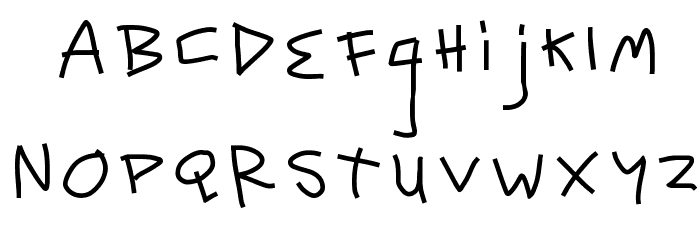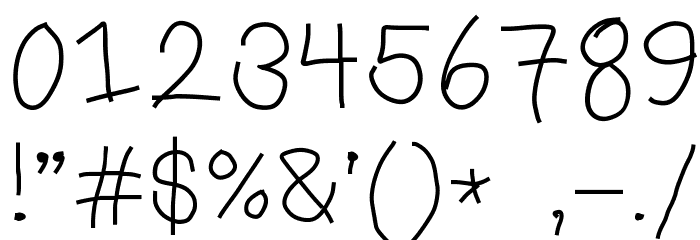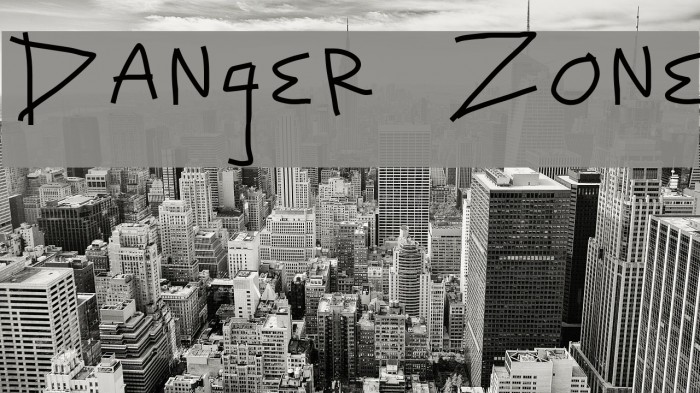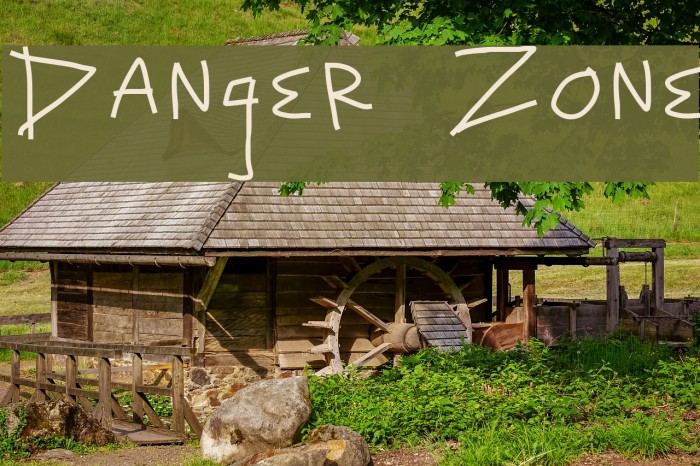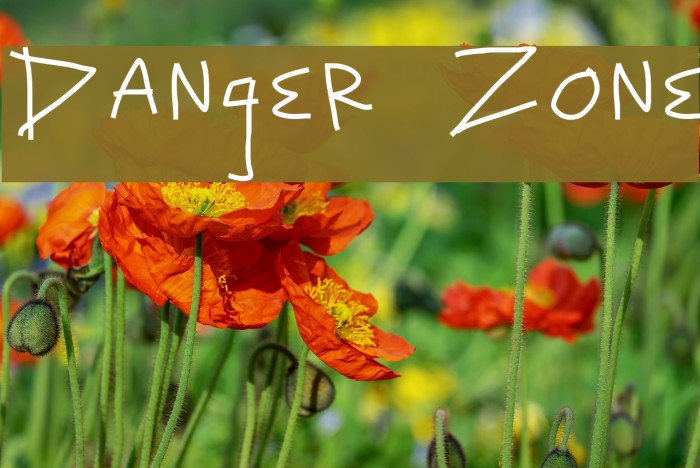
Danger Zone Font
This font exhibits a playful and edgy handwritten style, characterized by its irregular and jagged lines, which give it a raw and dynamic appearance. The uppercase letters are tall and slightly uneven, adding to the font's informal and spontaneous feel. The lowercase letters maintain a consistent style, with quirky angles and a casual flow. The numerals are bold and distinct, matching the overall aesthetic of the font. Special characters are creatively designed, enhancing the font's unique personality. This font is ideal for projects that require a touch of creativity and individuality, making it perfect for artistic and unconventional designs.
A playful, edgy handwritten font with irregular, jagged lines and a dynamic appearance.
- Proposed Projects: Ideal for creative projects such as album covers, posters, graffiti art, and edgy branding materials.
- Use Case: Logos, Posters, Artistic designs